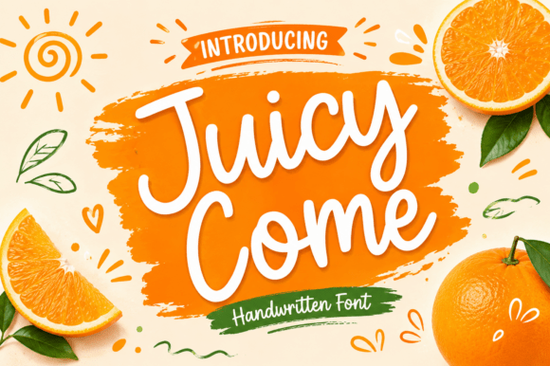
The Juicy Come font is a handwritten typeface that brings a fresh, energetic feel to any design project. With its fluid strokes and rounded edges, it captures the playful warmth of summer in every letter. Whether you're working on product packaging, social media graphics, or invitations, this font adds a lively personality that stands out without trying too hard.
Designed for creatives who want something casual yet polished, Juicy Come works across a surprising range of applications. Let's look at where it fits best, who should consider it, and how it compares to other handwritten fonts.
What Makes Juicy Come Font Stand Out?
At its core, Juicy Come Font is a handwritten script font with a distinctive organic feel. The letterforms have a natural flow rounded terminals, smooth curves, and confident strokes that don't feel overly rigid. It reads as friendly and approachable, which is exactly what you want for casual branding or summer-themed designs.
A few things that make it worth a closer look:
- Rounded edges that give it a soft, welcoming appearance
- Fluid baselines that mimic real handwriting rather than a mechanical script
- Bold, expressive strokes that hold up well at different sizes
- Works beautifully for both digital and print projects
If you've used something like Palm Bay Social Font for relaxed social media content, Juicy Come offers a similar vibe but with slightly bolder character. It's less delicate and more confident, making it a solid choice when you want text to pop.
What Can You Use This Font For?
This is where Juicy Come really shines. The font's personality adapts well across different creative contexts. Here are some practical uses:
- Product packaging food labels, beauty products, beverage branding
- Children's merchandise t-shirts, tote bags, stickers
- Digital signatures email sign-offs, blog headers
- Quotes and social media graphics Instagram posts, Pinterest pins
- Invitations and cards birthday parties, summer events, casual gatherings
- Print-on-demand designs mugs, phone cases, apparel
- Corporate identities brands targeting a youthful, approachable market
For POD sellers specifically, a font like this pairs well with bold graphic elements. Think tropical patterns, fruit illustrations, or bright color palettes. If you're already using a playful option like Crayons Bright Font for kids' products, Juicy Come can complement it nicely for slightly older audiences.
Does It Work for Professional Branding?
Yes with the right context. Juicy Come isn't the font for a law firm or a financial institution, and that's perfectly fine. But for brands in food and beverage, lifestyle, wellness, beauty, or children's products, it communicates warmth and authenticity.
Small businesses looking for a handwritten font for their logo, packaging, or marketing materials often struggle to find something that feels genuine without being sloppy. Juicy Come strikes that balance. The strokes are intentional, and the overall design maintains consistency across characters.
If you need something with more of a signature feel for upscale branding, The Wedding Signature Font might be a better fit. But for casual, approachable brand voices, Juicy Come does the job well.
How Does It Compare to Other Handwritten Fonts?
There's no shortage of handwritten fonts on the market, so how does this one stack up? Here's a quick comparison based on style and use case:
- Juicy Come bold, playful, summer-ready. Great for packaging and POD.
- Chunky Font thicker strokes, more impact. Better for headlines and poster designs.
- Victory Swing Font a retro-inspired swing feel. Ideal for vintage or nostalgic themes.
- Palm Bay Social Font laid-back and casual. Perfect for social media templates.
Each of these serves a slightly different creative purpose. Juicy Come sits in a sweet spot where it's energetic enough to grab attention but readable enough for longer text like product descriptions or quotes.
Is Juicy Come a Good Fit for Print-on-Demand Sellers?
Absolutely. If you sell on platforms like Redbubble, Merch by Amazon, or Etsy, fonts that feel hand-drawn tend to perform well in niche categories. Juicy Come works for:
- Summer-themed t-shirt designs
- Drink-themed merchandise (smoothies, juices, cocktails)
- Motivational quote products
- Kids' party supplies and stationery
The key with POD is choosing fonts that are legible at various sizes and have a clear mood. Juicy Come checks both boxes. Its rounded, fluid style reads well on screen and in print, and the summer-inspired energy comes through immediately.